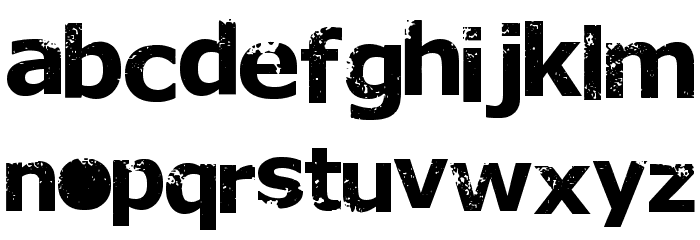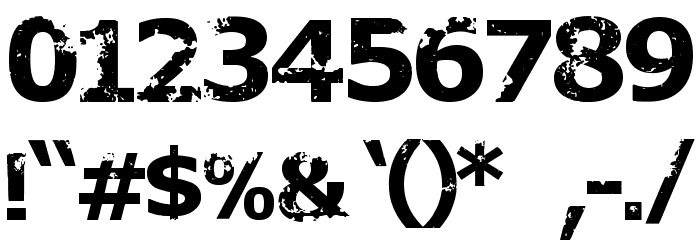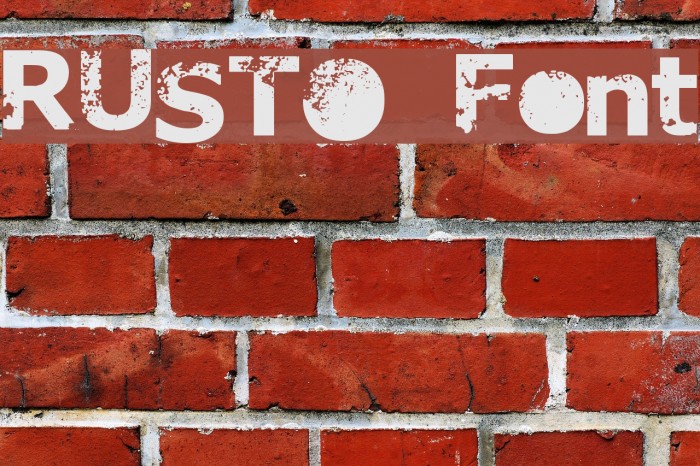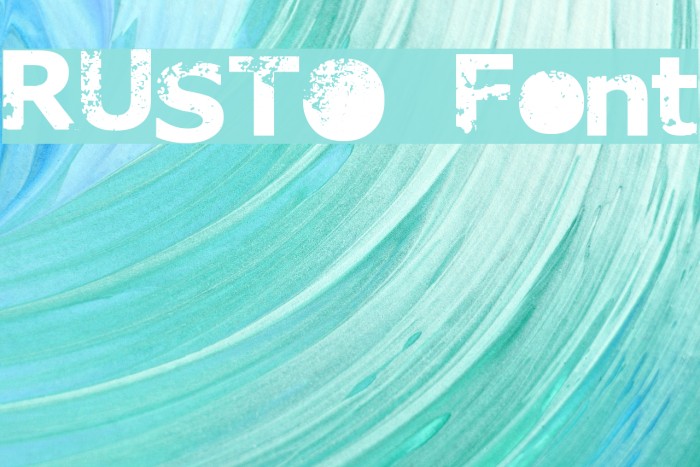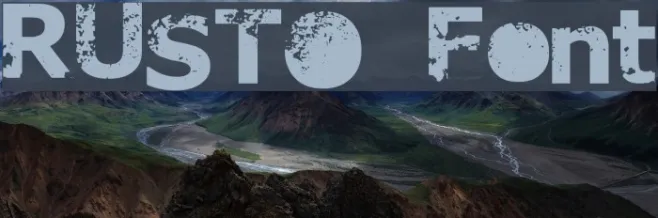
RUSTO Font
This font features a bold, distressed style with a grunge texture that gives it a rugged and worn appearance. The characters are thick and heavy, with irregular edges and a rough, weathered look. The uppercase and lowercase letters maintain a consistent weight, while the numbers and special characters follow the same distressed pattern. This font's unique texture makes it stand out, providing a sense of edginess and rawness. It's ideal for projects that require a bold statement or a vintage, industrial feel.
A bold, distressed font with a grunge texture and rugged appearance.
- Proposed Projects: Perfect for album covers, posters, branding for edgy or vintage-themed products, and any design needing a bold, gritty look.